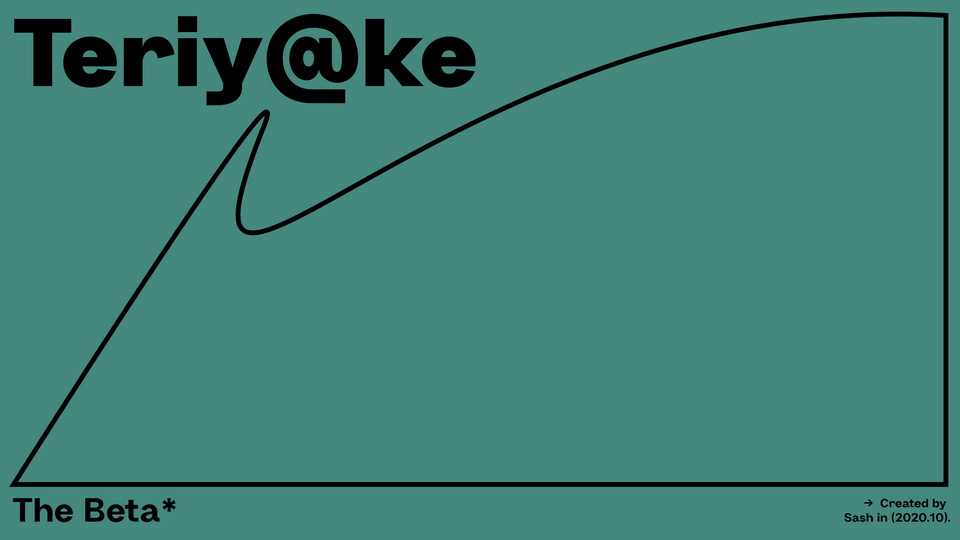
Download Teriyake typeface, a post-modern sans serif font family with 8 weights. Teriyake features combination of clear lines, unique curves and geometric shapes.